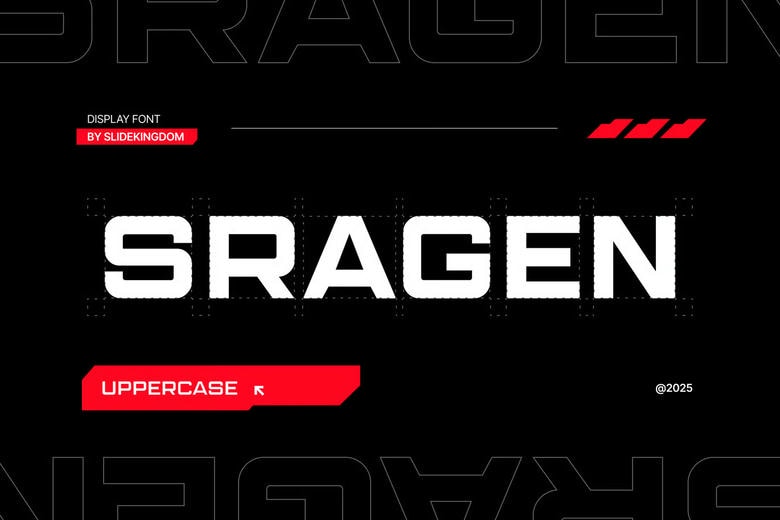
Sragen Font
Presenting the Sragen Display Font, the fusion of power, with elegance! Coro is an outstanding typeface that allows enhancing your design projects with this elegance of the boldest characters. This font will enable you to come up with attractive headlines, logos, and designs because it has an all caps option and you can choose between Regular and Bold fonts.
The Sragen Display Font is the one to use be it in a techno inspired poster, car based branding effort or in a college based graphic. It is designed with standard Latin characters, which give it the likelihood of having a smooth fit in your projects. Allow cool, hardworking masculine vibrations of this font to transform your works and create a memorable impression. It is time to unleash your creative spirit as you learn the strength of Sragen Display Font today!